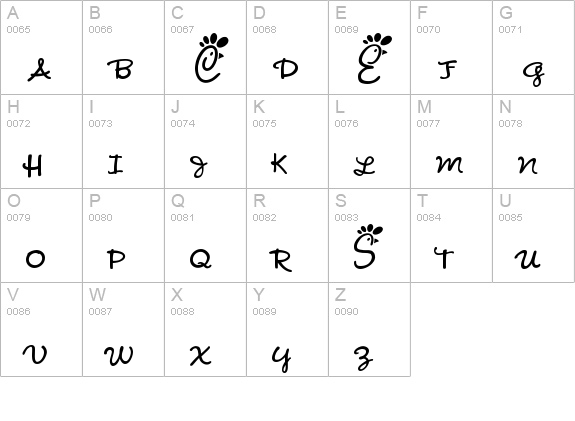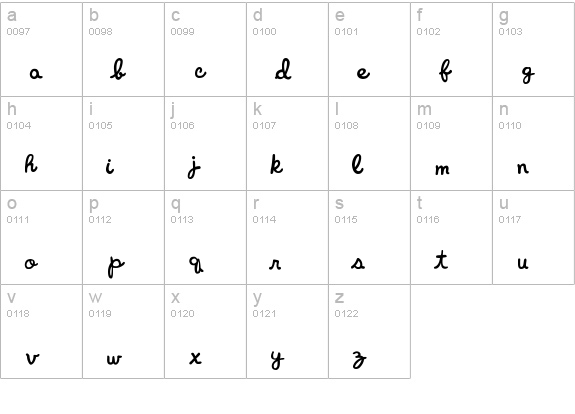
Introducing Chicken-fil-A font, a delightful and playful typeface that will add a touch of whimsy to any project! This charming font captures the essence of a sunny day spent enjoying crispy chicken and friendly conversations. With its quirky and rounded letterforms, Chicken-fil-A font exudes a sense of warmth and approachability that will instantly grab attention and leave a lasting impression. But what makes Chicken-fil-A font truly special is that it is not only visually captivating, but also freely available to download at FontsMarket.com. Yes, you heard it right - this amazing font can be yours at no cost! Whether you're a graphic designer looking to elevate your branding, a small business owner aiming to create eye-catching signage, or simply someone who appreciates the beauty of typography, Chicken-fil-A font is the perfect choice. Imagine the possibilities with Chicken-fil-A font at your fingertips. From menu designs to social media graphics, from packaging to invitations, this font will bring a touch of whimsy and fun to every project. Its versatility allows it to effortlessly adapt to various design styles, making it suitable for both professional and personal use. With its clean lines and legible letterforms, Chicken-fil-A font ensures that your message will be conveyed with clarity and impact. Its playful nature adds a lightheartedness to your designs, making them memorable and engaging. Whether you're aiming for a retro-inspired look or a modern aesthetic, this font has got you covered. So why wait? Head over to FontsMarket.com and download Chicken-fil-A font today. Join the countless designers and creatives who have already discovered the magic of this typeface. Embrace the freedom of creativity and let Chicken-fil-A font elevate your designs to new heights. Don't miss out on this incredible opportunity to bring a dash of whimsy and charm to your projects - all for free!